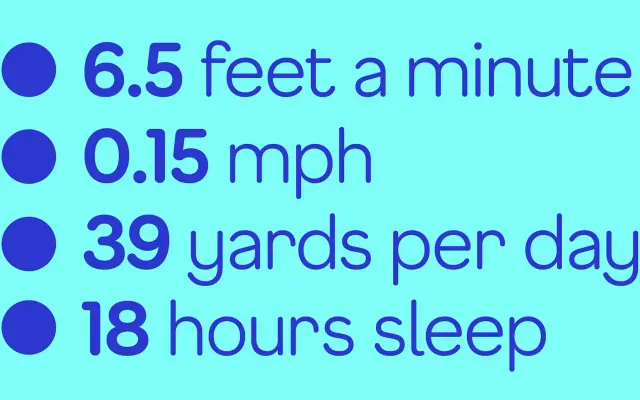
F37 Gruffy Round
F37 Gruffy Round specimen from F37 Foundry
The fully rounded cut of F37 Gruffy, keeping the family's curly tails and friendly mood while softening every terminal to a circle.
A rounded humanist sans by Rick Banks, drawn as the fully softened companion to F37 Gruffy. Six weights from Light to Black with matching italics keep the parent family's upward curly tails, slightly over-exaggerated curves and angled terminals, but trim every stroke end to a complete round. Suits friendly branding, children's products, packaging and identity systems that want warmth without losing a contemporary edge.
F37 present Gruffy Round as the rounded sister to F37 Gruffy, sharing the parent's curly tails, slightly over-exaggerated curves and angled terminals, with corners and stroke ends softened to a full round.